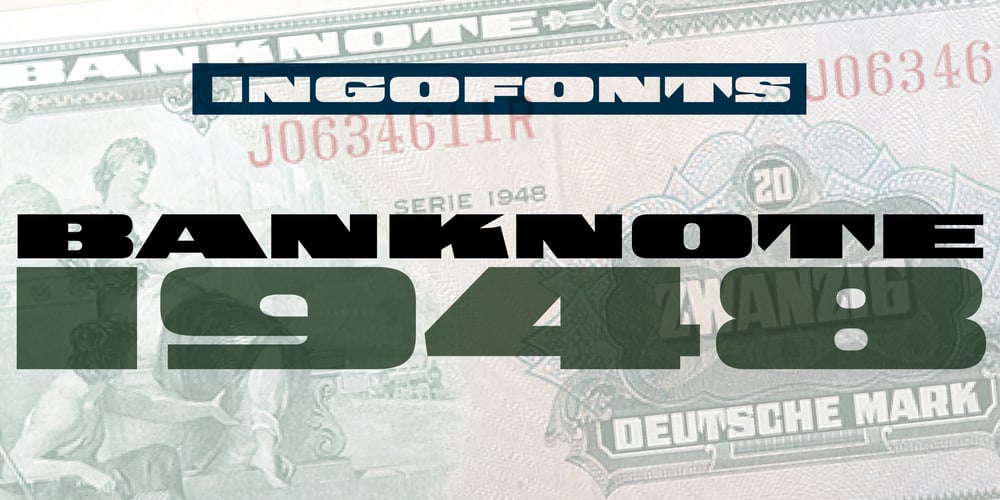
Banknote 1948 Font Family was designed by Ingo Zimmermann and published by Ingo. Banknote 1948 contains 1 styles and family package options. A very expanded sans serif font in capital letters inspired by the inscription on a bank noteOld bank notes tend to have a very typical typography. Usually they carry decorative and elaborately designed markings. For one thing, they must be practically impossible to forge and for another, they should make a respectable and legitimate impression. And in the days of copper and steel engravings, that meant nothing less than creating ornate, shaded or otherwise complicated scripts. Designing the appropriate script was literally in the hands of the engraver.That’s why I noticed this bank note from 1948. It is the first 20 mark bill in the then newly created currency ”Deutsche Mark.“ All other bank notes of the 1948 series show daintier forms of typography with an obvious tendency toward modern face. The 1949 series which followed shortly thereafter reveals the more complicated script as well. For whatever reason, only this 20 mark bill displays this extremely expanded sans serif variation of the otherwise Roman form applied. This peculiarity led me in the year 2010 to create a complete font from the single word ”Banknote.“Back to those days in the 40’s, the initial edition of DM bank notes was carried out by a special US-American printer who was under pressure of completing on time and whose engravers not only engraved but also designed. So that’s why the bank notes resemble dollars and don’t even look like European currency. That also explains some of the uniquely designed characters when looked at in detail. Especially the almost serif type form on the letters C, G, S and Z, but also L and T owe their look to the ”American touch.“The ingoFont Banknote 1948 comprises all characters of the Latin typeface according to ISO 8859 for all European languages including Turkish and Baltic languages.In order to maintain the character of the original, the ”creation“ of lower case letters was waived. This factor doesn’t contribute to legibility, but this kind of type is not intended for long texts anyway; rather, it unfolds its entire attraction when used as a display font, for example on posters.Banknote 1948 is also very suitable for distortion and other alien techniques, without too much harm being done to the characteristic forms.With Banknote 1948 ingoFonts discloses a font like scripts which were used in advertising of the 1940’s and 50’s and were popular around the world. But even today the use of this kind of font can be expedient, especially considering how Banknote 1948, for its time of origin, impresses with amazingly modern detail.